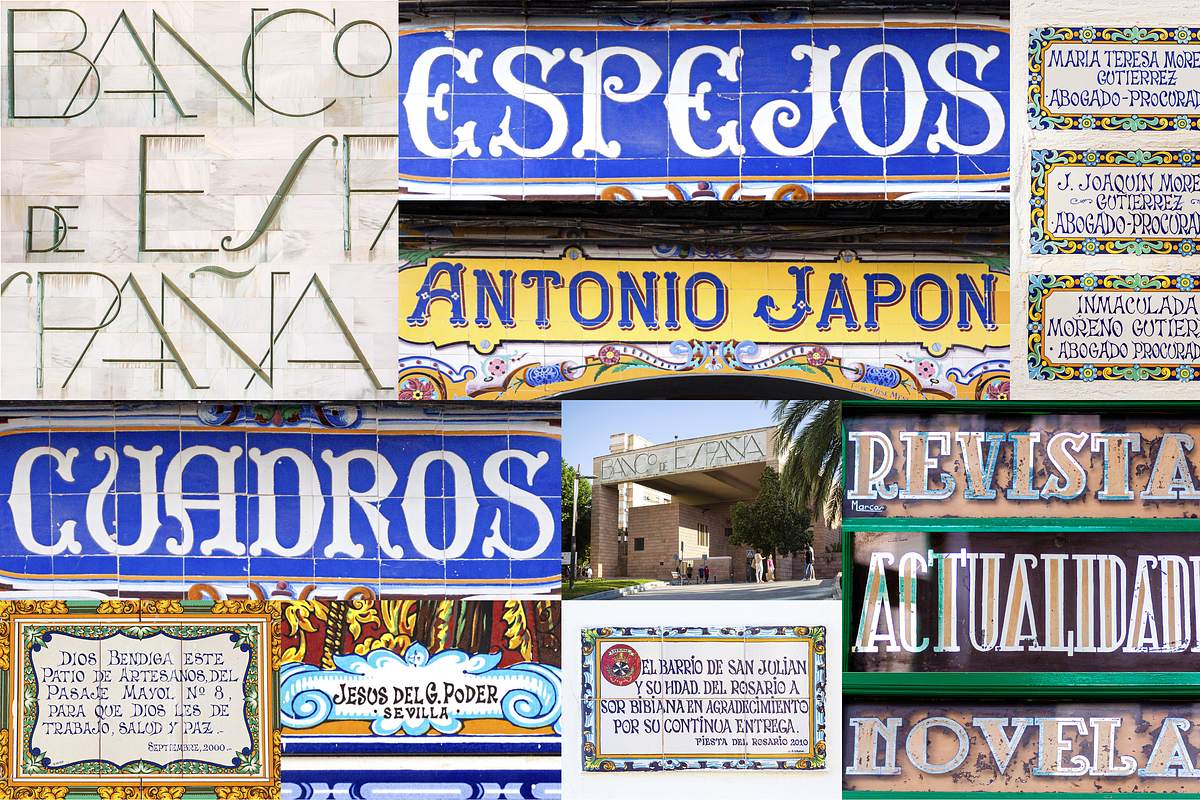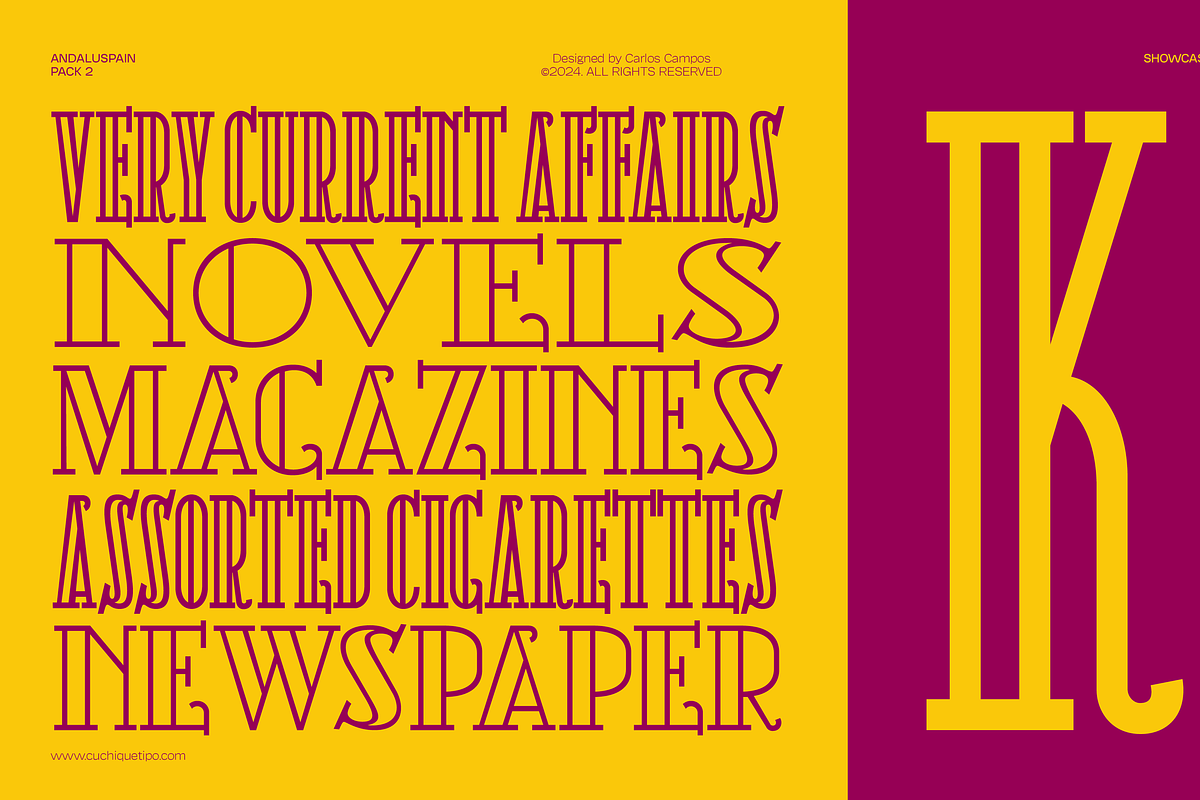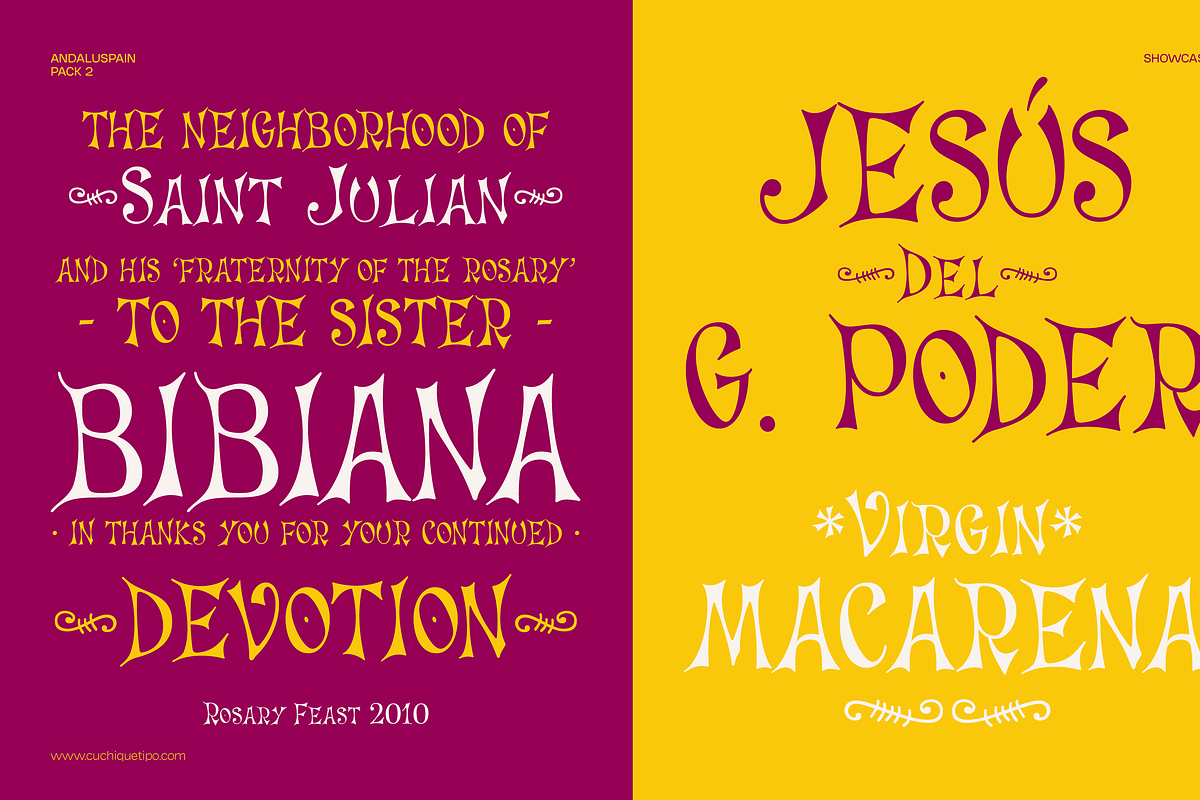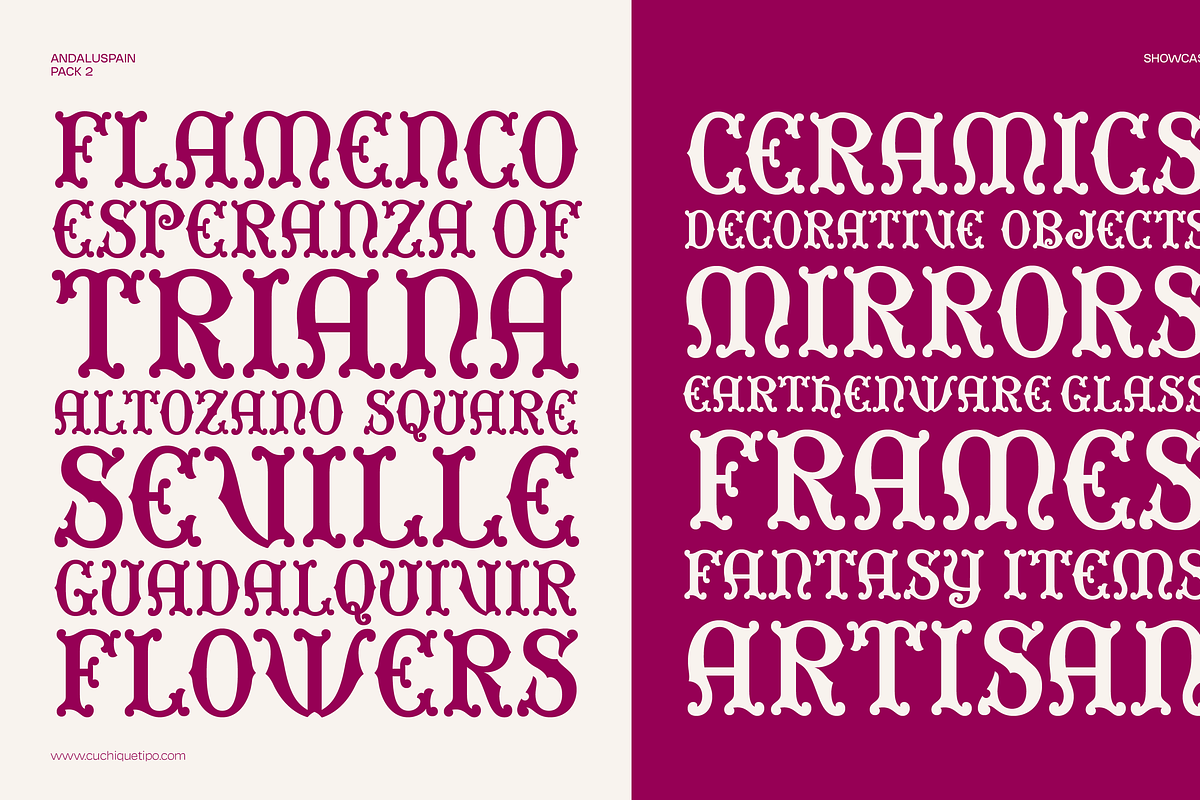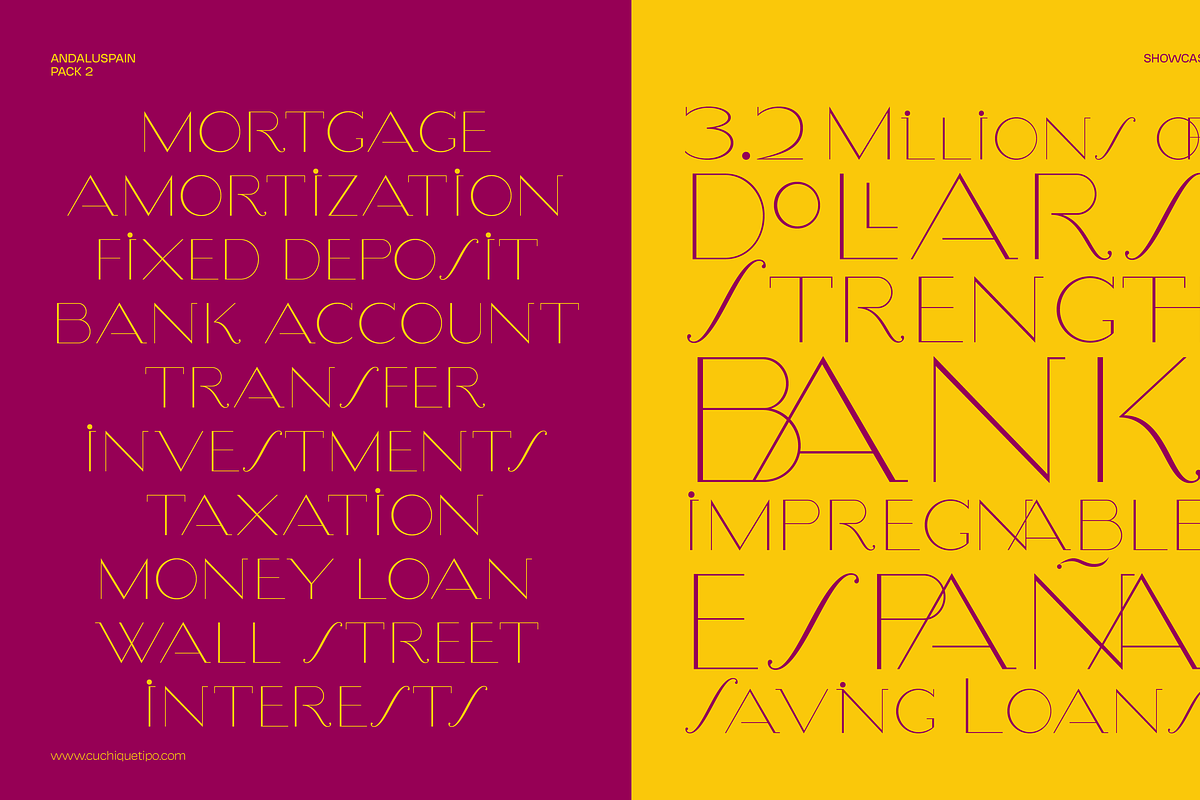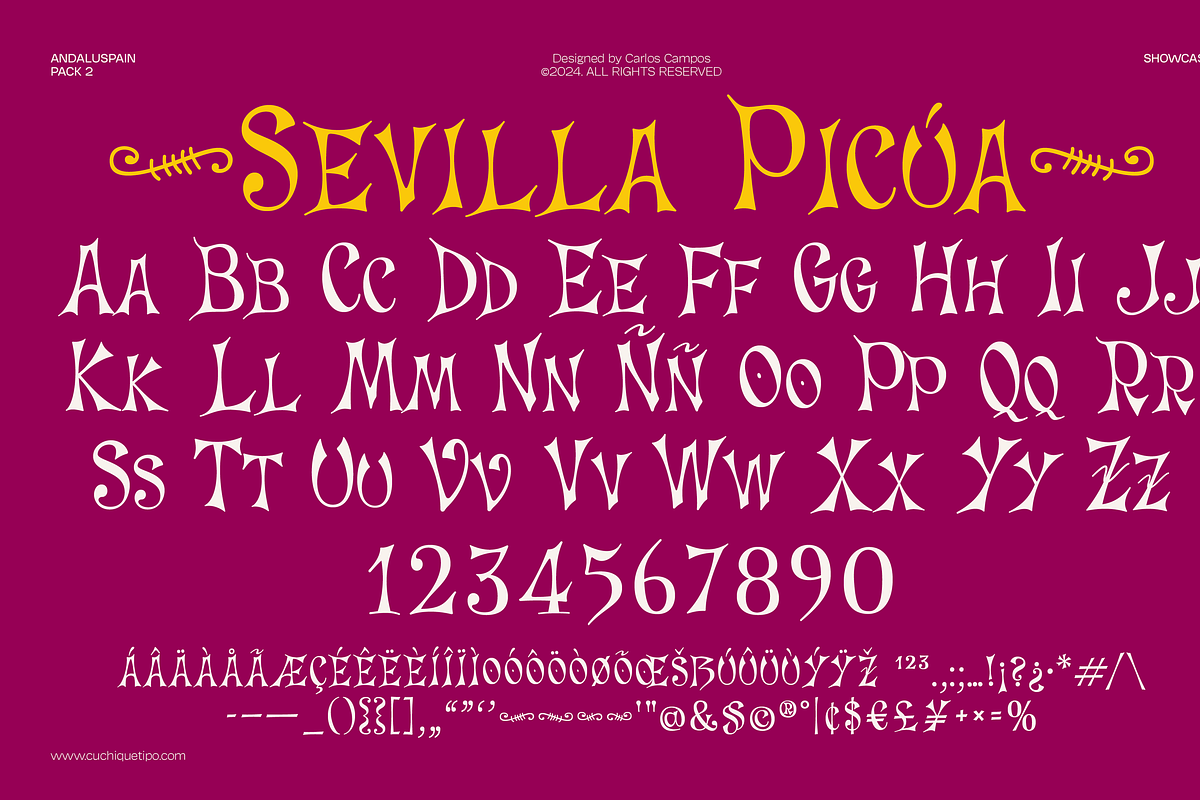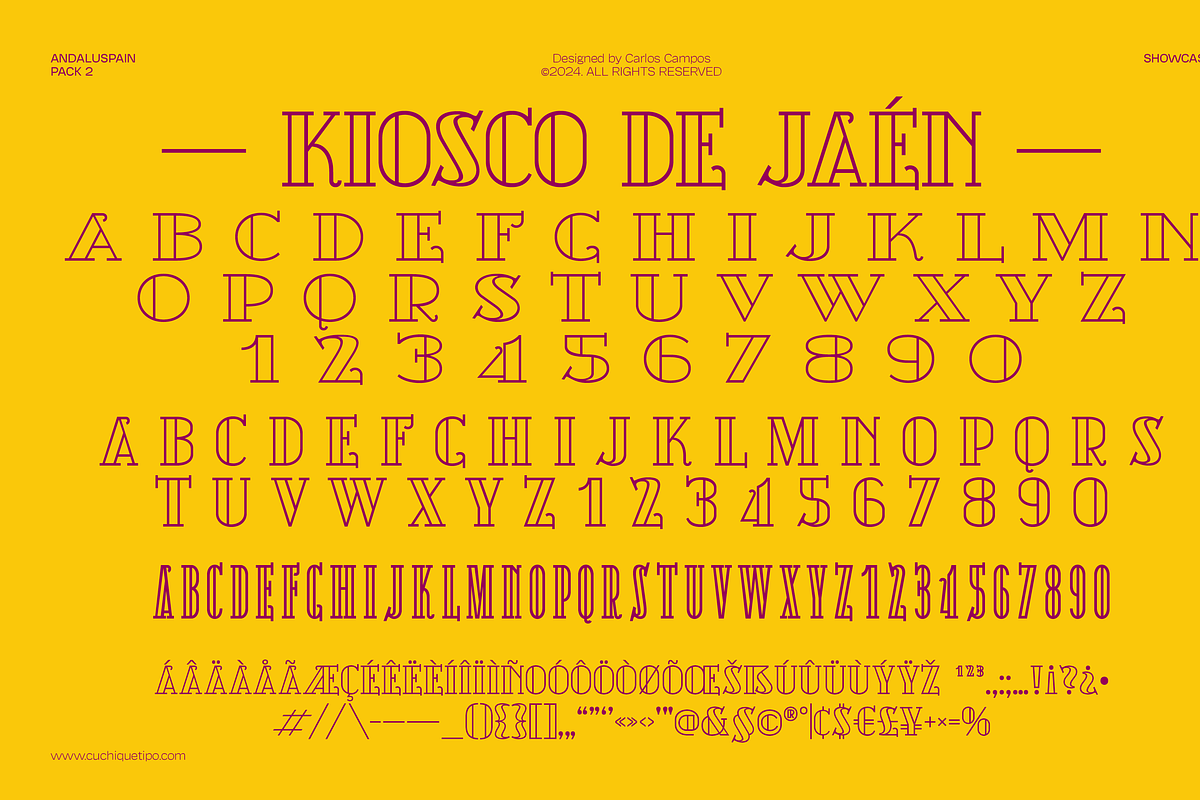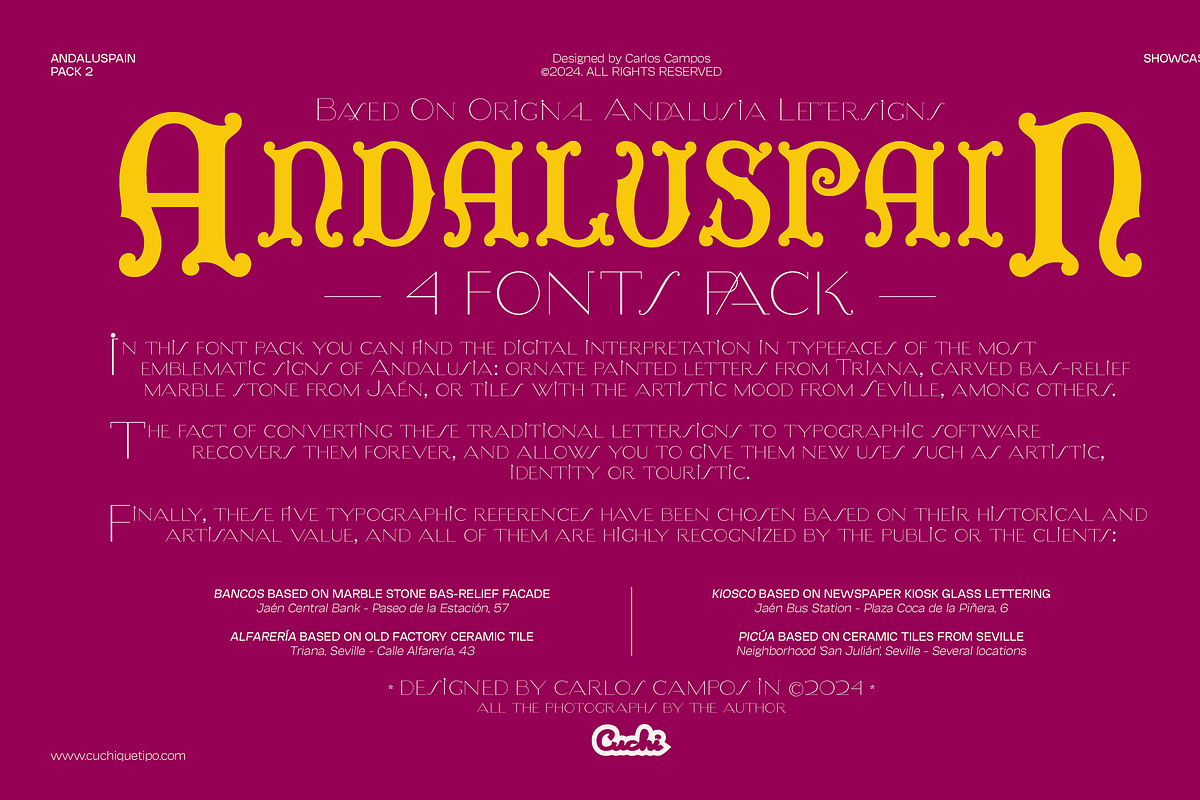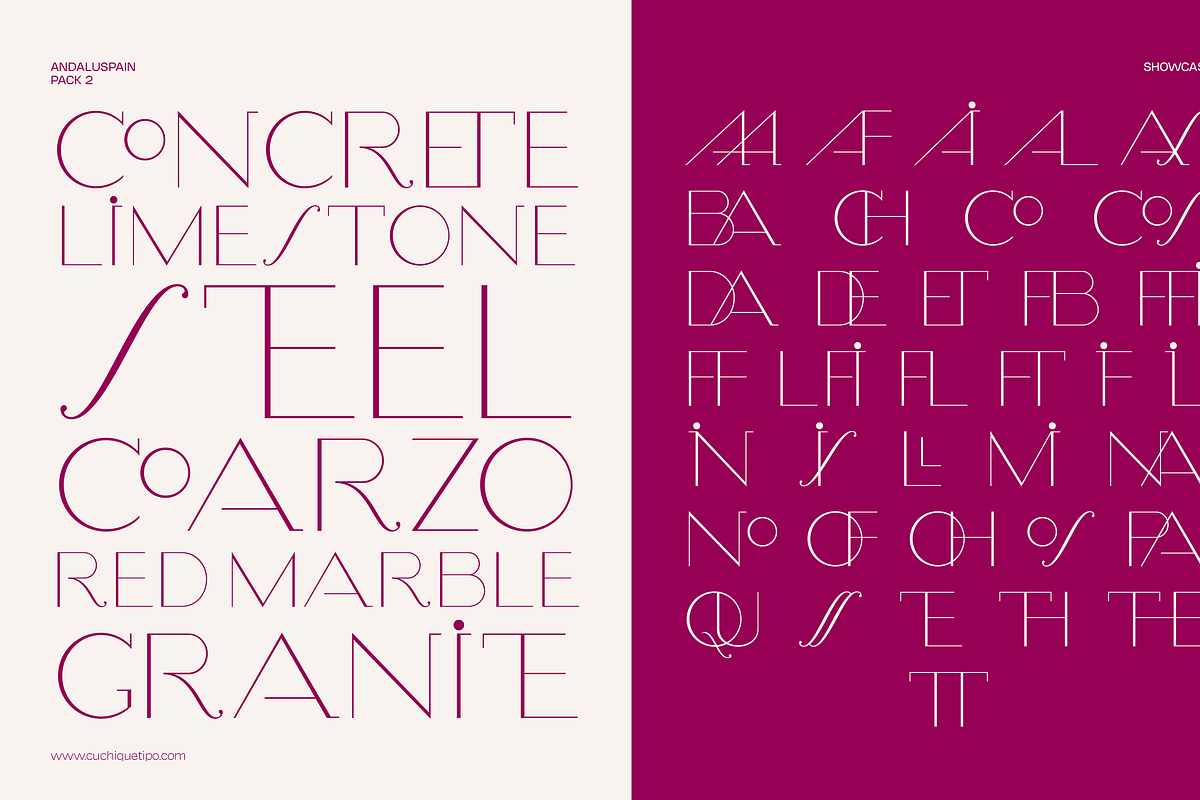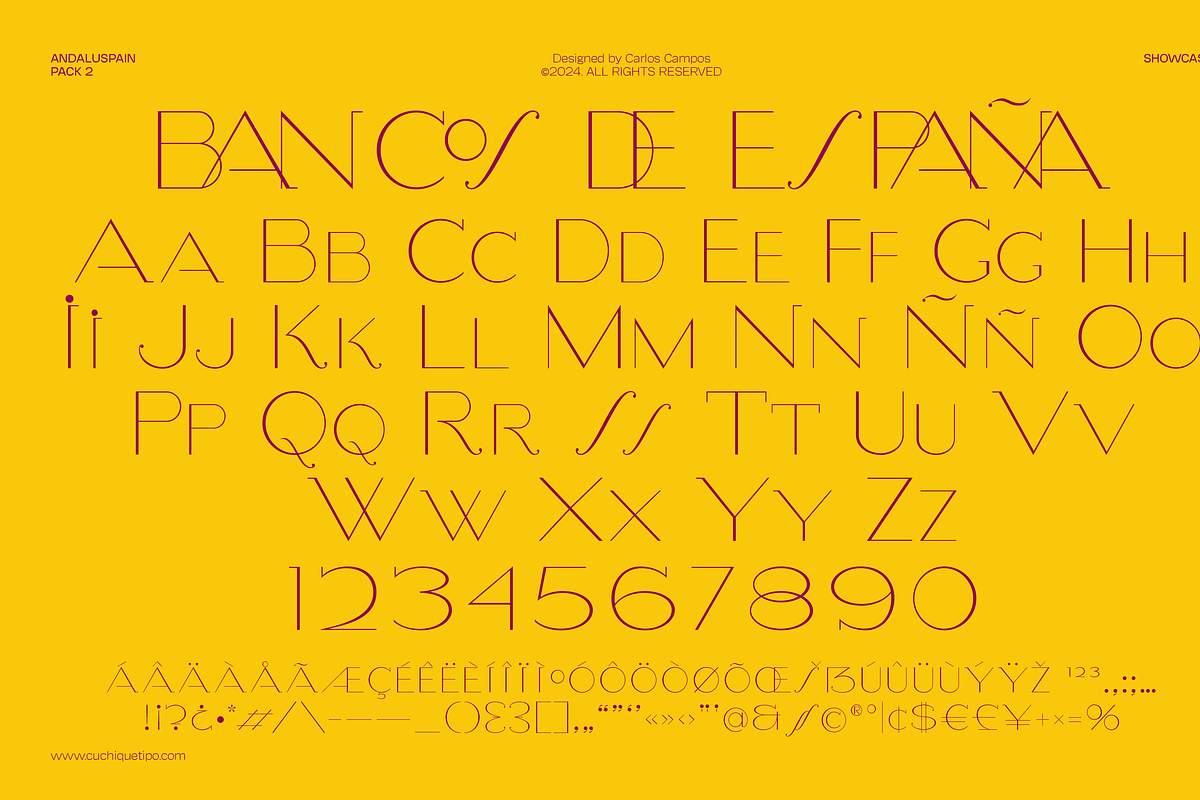
Andaluspain II
ANDALUSPAIN II is a pack of six fonts designed by Carlos Campos (Cuchi, Qué Tipo!).
In this second font pack you can find the digital interpretation in typefaces of the most emblematic signs of Andalusia: ornate painted letters from Triana, carved bas-relief marble stone from Jaén, or tiles with the artistic mood from Seville, among others.
The fact of converting these traditional lettersigns to typographic software recovers them forever, and allows you to give them new uses such as artistic, identity or touristic. Finally, these five typographic references have been chosen based on their historical and artisanal value, and all of them are highly recognized by the public or the clients.